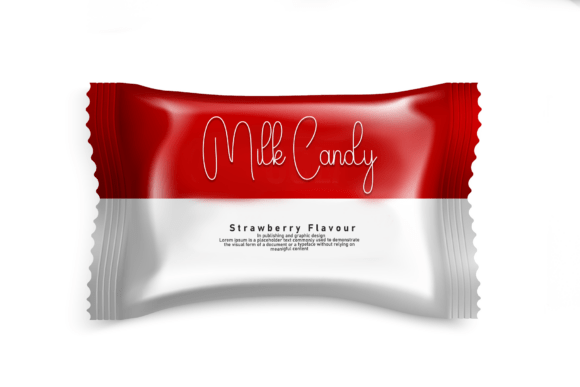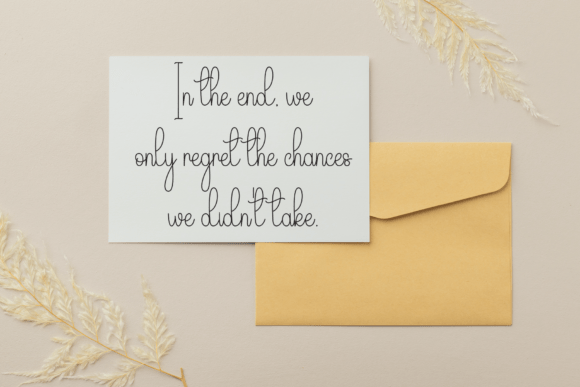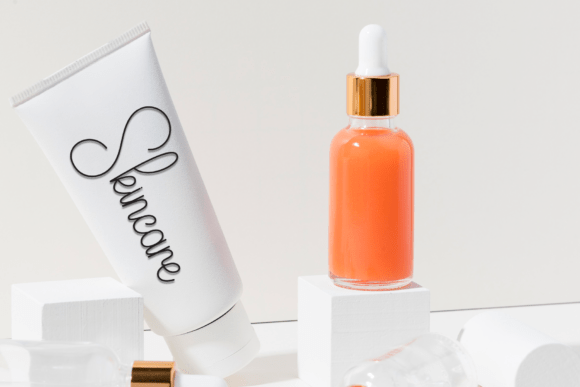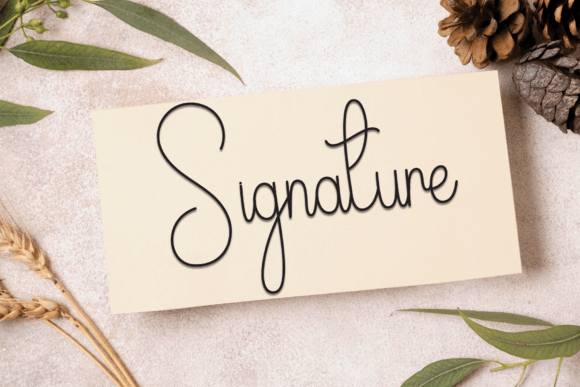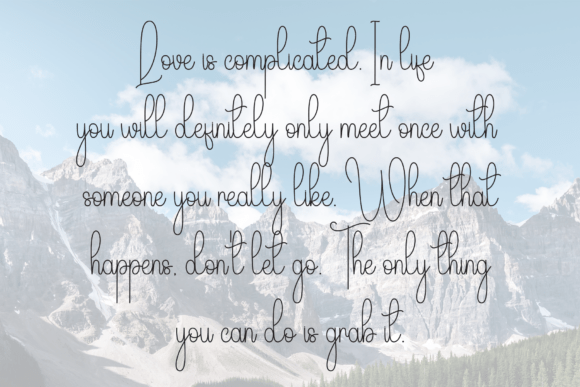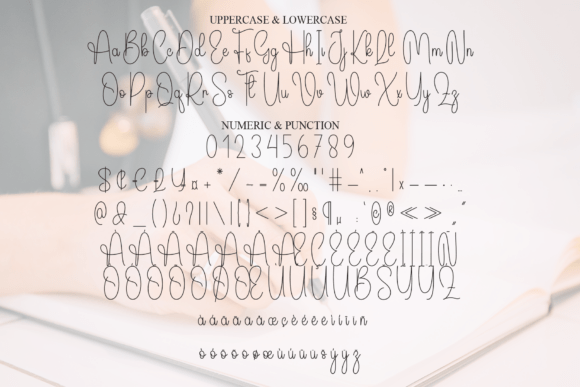
Introduction to Notes Signature Font
Immerse yourself in the delightful charm of this amiable, handwritten display font.
Infused with a wholesome sweetness, the lively personality of this font lends a delightful fun touch to whatever it graces Capture the essence of affection and joy in wedding invitations, impart warmth in greetings cards, or sprinkle a dash of whimsy in any design that yearns for a playful spin.
Key Features of Notes Signature Font